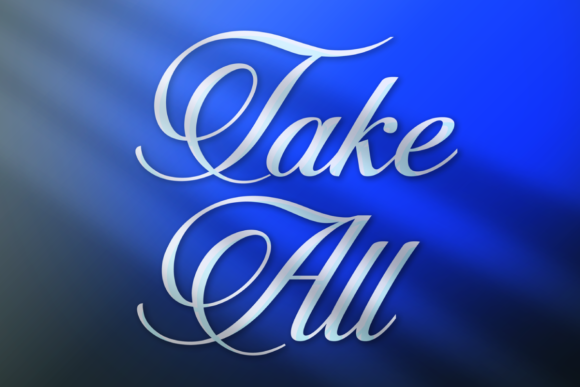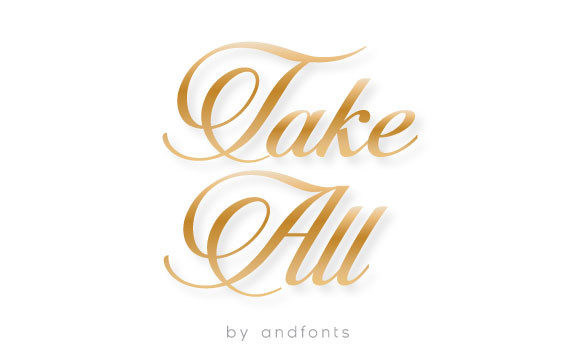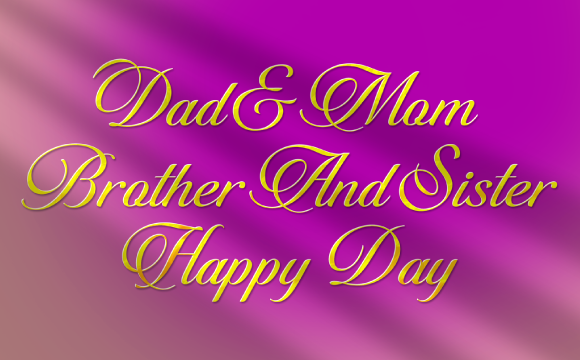
Introducing Take All, an incredibly elegant and flowing font that exudes sophistication and grace. With its stunning design, Take All is perfect for a wide range of design projects, including wedding invitations, thank you cards, quotes, greeting cards, logos, business cards, and more. It adds a customized touch to your designs, elevating them to new levels of beauty and elegance.
Take All’s elegant and flowing design sets it apart as a font that captures attention and adds a touch of refinement to your projects. Each letter carries a sense of fluidity and grace, creating a visually stunning composition. This flowing and delicate nature adds an air of sophistication and elegance to your designs, making them stand out.
The versatility of Take All allows it to shine in various design contexts. Whether you’re working on wedding stationery, personal branding, or promotional materials, Take All adds a touch of customized beauty. Its elegant appearance creates a sense of luxury and exclusivity, enhancing the overall visual appeal.
Take All’s flowing nature is especially well-suited for wedding invitations, thank you cards, and romantic quotes. Its graceful curves and delicate lines evoke a sense of romance and beauty, setting the perfect tone for special occasions. With Take All, you can create designs that reflect the uniqueness and personal touch of your events and messages.
In addition to its visual appeal, Take All offers the convenience of PUA encoding. This means you can easily access all of the glyphs and swashes, allowing for greater customization and creativity in your designs. You have the freedom to explore various letterforms and add stylish swashes to create a truly unique and personalized look.
In summary, Take All is an incredibly elegant and flowing font that adds sophistication and grace to your designs. Its stunning design makes it suitable for wedding invitations, thank you cards, quotes, greeting cards, logos, business cards, and more. Embrace Take All’s customized touch and let it elevate the beauty and elegance of your projects, creating visually stunning compositions that leave a lasting impression.